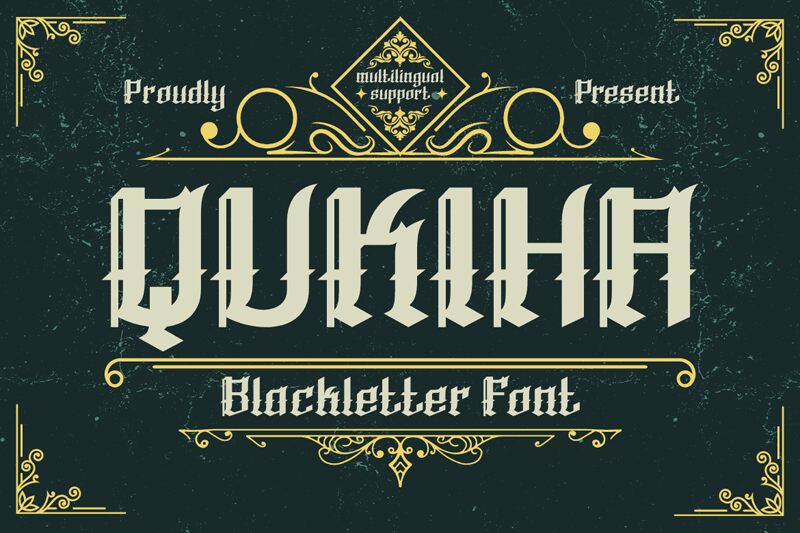
Qukiha emerges as a stunning testament to the artistry of Twinletter, blending the enigmatic allure of gothic type with a fresh, modern twist. This font dances on the page, infusing each project with a touch of sophistication that only a contemporary blackletter can provide. Tailor-made for designers seeking to inject their work with an air of intrigue and historical charm, Qukiha is impeccably suited for logos, labels, badges, and even visual narratives in music videos or films.
The font's character set is designed with harmony in mind—each letterform crafted to create visually captivating words that command attention. With its standout capital letters and sleek profile, Qukiha exudes professionalism and style. Whether you're crafting concert posters or conceptualizing branding elements, this font ensures your creative vision is not just seen but felt. Embrace Qukiha by Twinletter for your next endeavor where only the boldest gothic-inspired modernity will suffice.